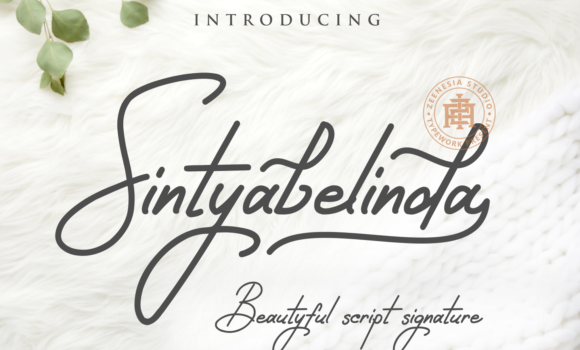
Sintyabelinda Font – Free Download Introduction to Sintyabelinda Font Sintyabelinda is a modern and elegant handwritten font. 📸 Preview Gallery 6 images 📌 Product Name Sintyabelinda Font 👤 Author zeenesia 📂 Category Explore ⬇️ Download Sintyabelinda Font FREE Free Download